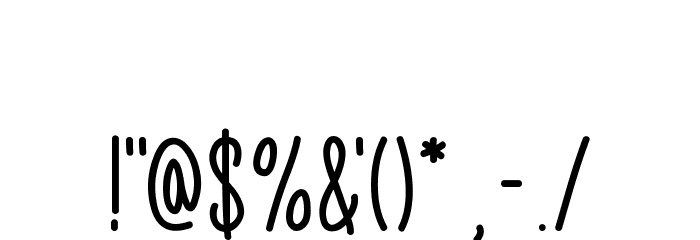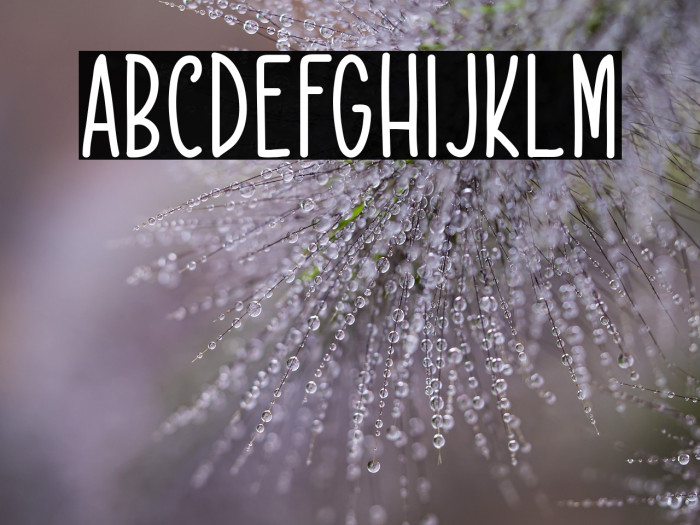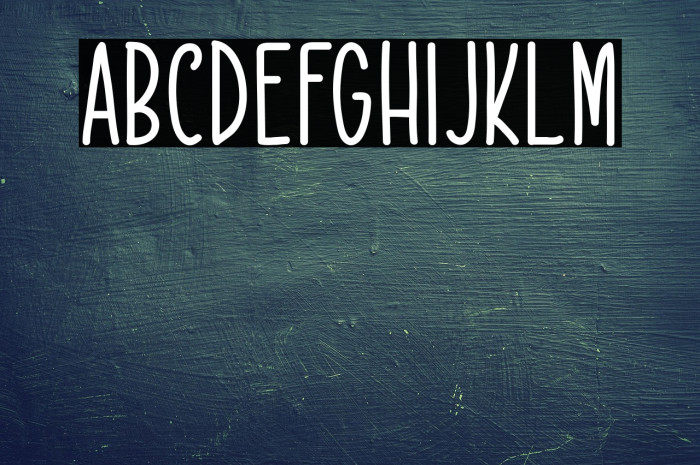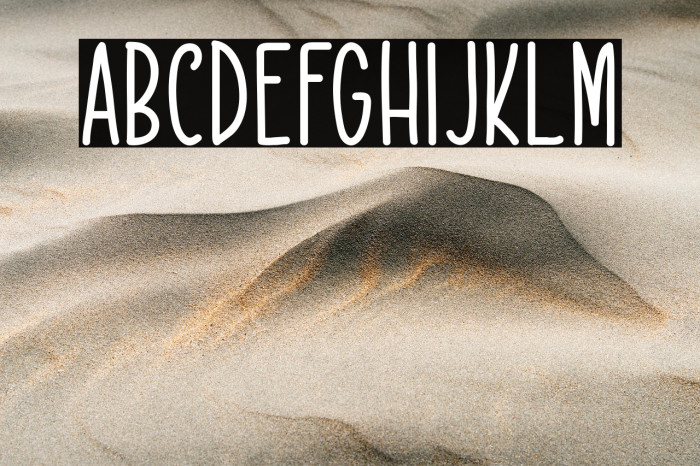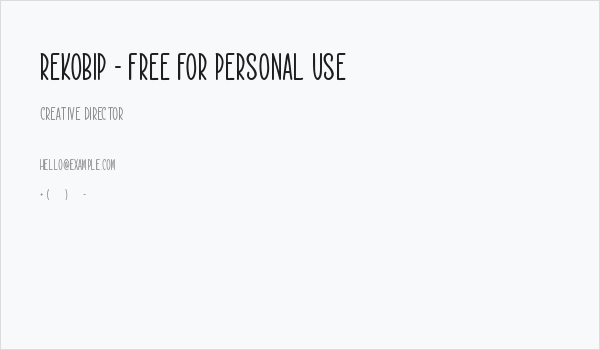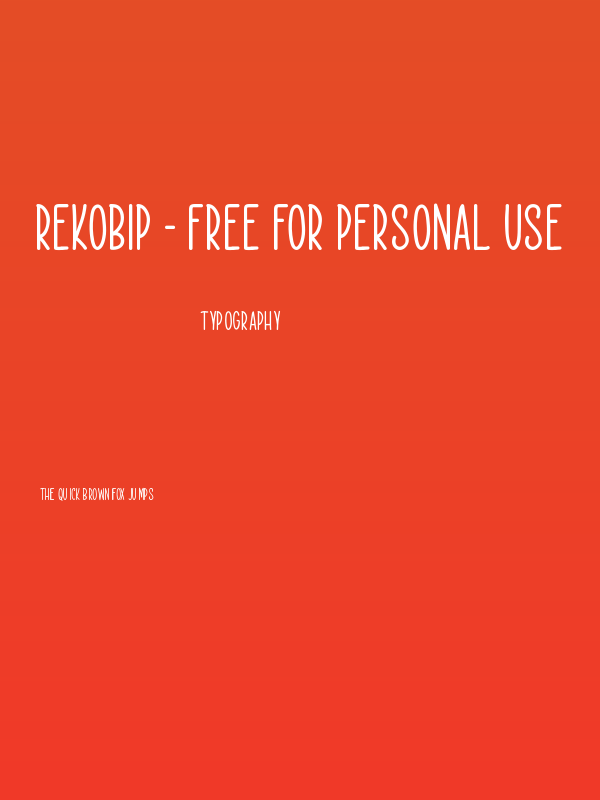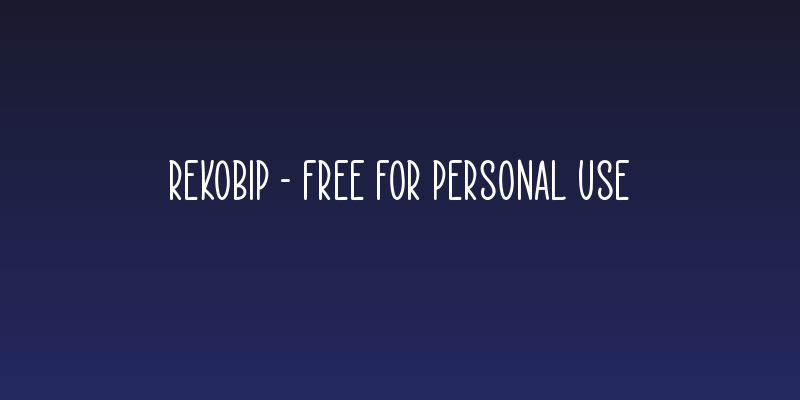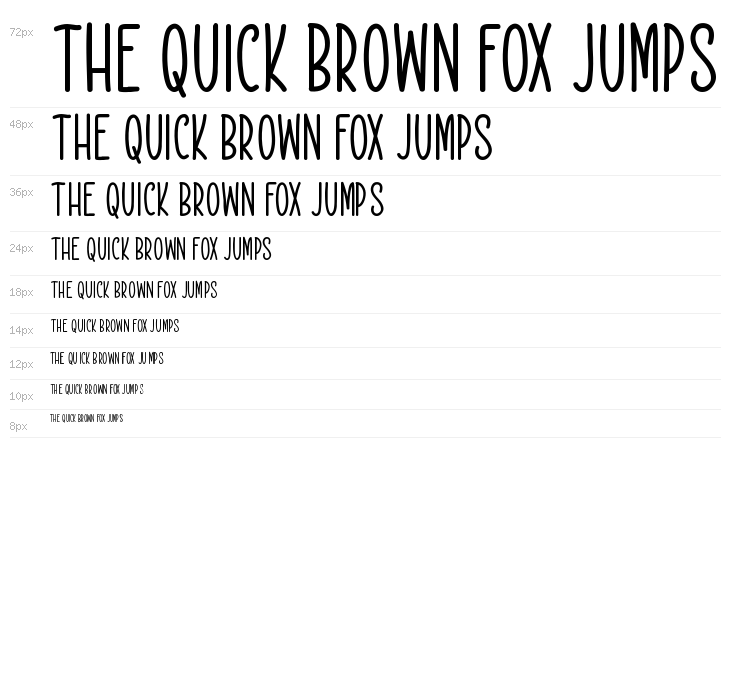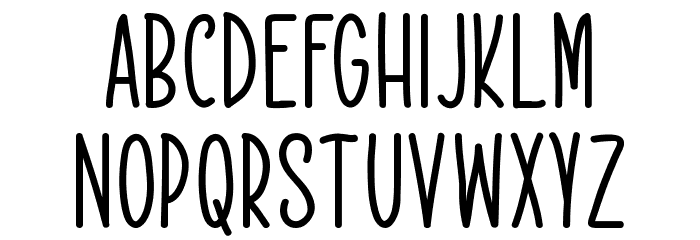
Rekobip - Free For Personal Use Font
Rekobip - Free For Personal Use Description
This font features a playful and casual handwritten style, characterized by its rounded and slightly irregular letterforms. The uppercase and lowercase letters maintain a consistent flow, with a friendly and approachable appearance. The strokes are uniform in thickness, giving it a balanced and cohesive look. The font includes a full set of uppercase and lowercase letters, numbers, and a variety of special characters, making it versatile for different design needs. Its informal and relaxed style makes it suitable for projects that require a personal touch or a sense of whimsy.
| Proposed Projects | Ideal for greeting cards, children's books, playful branding, and social media graphics. |